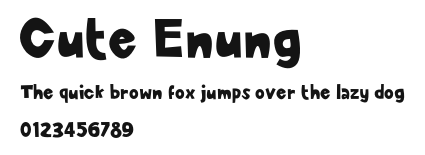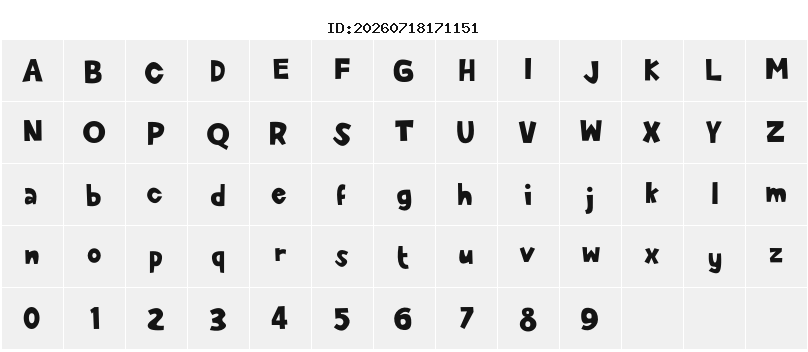
• Font Name: Cute Enung
• Designer: Ihsan Hasanudin
• Manufacturer: 'Sanz Fonts
• Description: Dedicated to Enung Sa'adah :)
About Cute Enung.otf
Cute Enung.otf is a modern, elegant sans-serif font designed for ultimate readability and visual harmony. Perfect for branding, headlines, web design, and print materials.